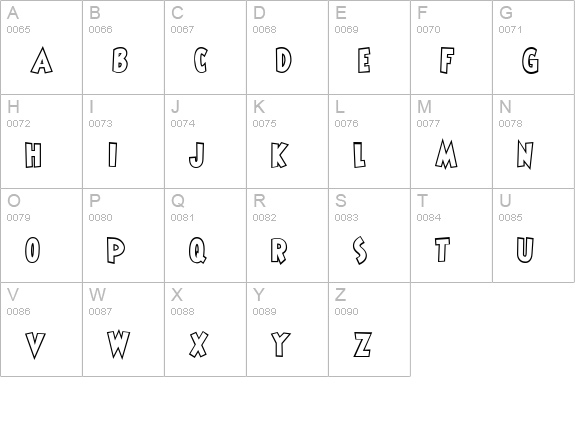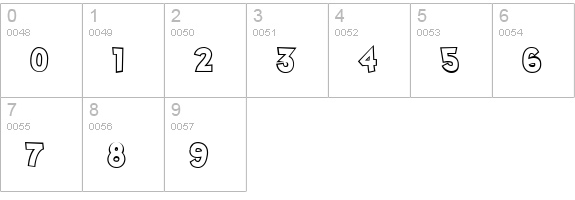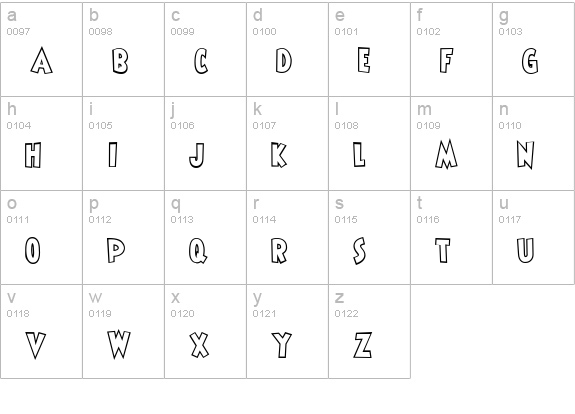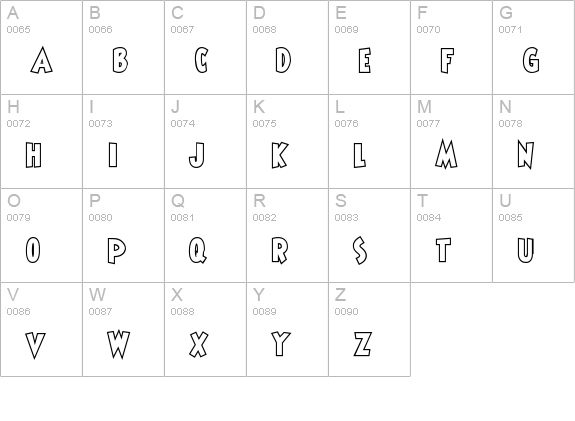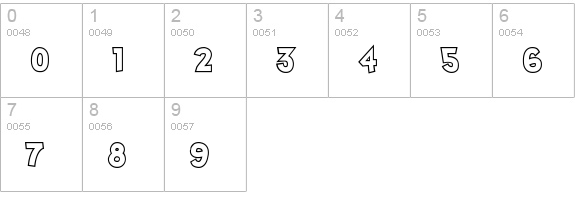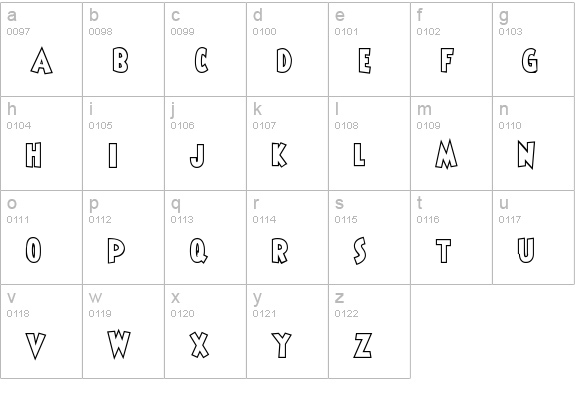
ShermlockMadstyle Font Details
ShermlockMadstyle font is a captivating and versatile typeface that exudes a sense of mystery and intrigue. Its unique design combines elements of classic typography with a modern twist, making it perfect for a wide range of creative projects. With its bold and expressive letterforms, ShermlockMadstyle font commands attention and adds a touch of sophistication to any design. Whether you're creating a logo, designing a poster, or crafting an eye-catching website, this font is sure to make a lasting impression. One of the most appealing aspects of ShermlockMadstyle font is that it is freely available to download at FontsMarket.com. This means that you can access this extraordinary typeface without any cost, making it an excellent choice for both personal and commercial projects. The versatility of ShermlockMadstyle font is evident in its extensive character set, which includes uppercase and lowercase letters, numbers, punctuation marks, and special characters. This comprehensive range allows you to add a touch of elegance and sophistication to your designs, making them stand out from the crowd. Whether you're a professional designer or a casual enthusiast, ShermlockMadstyle font offers a wealth of possibilities for your creative endeavors. Its timeless appeal and exquisite craftsmanship make it a must-have in your font collection. So, if you're looking for a font that combines elegance, versatility, and affordability, look no further than ShermlockMadstyle font. Download it for free at FontsMarket.com and unleash your creativity today.